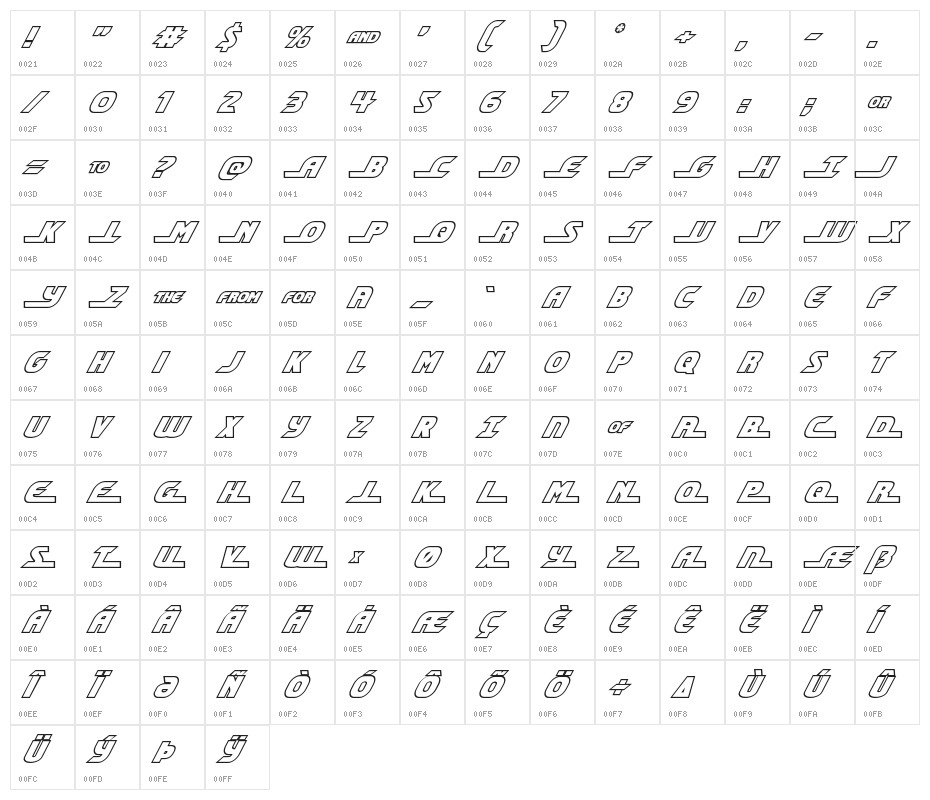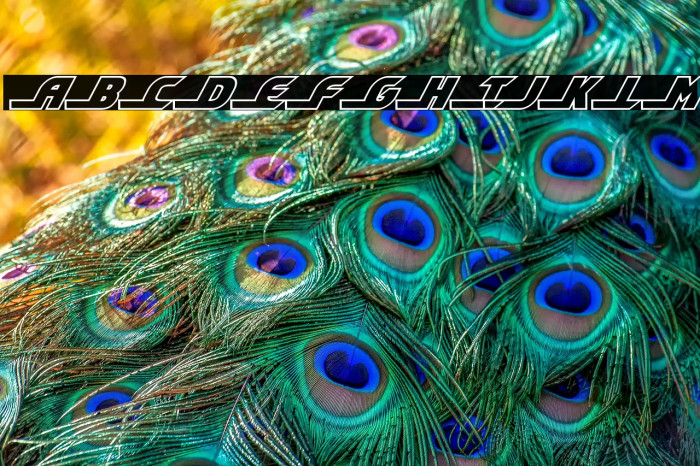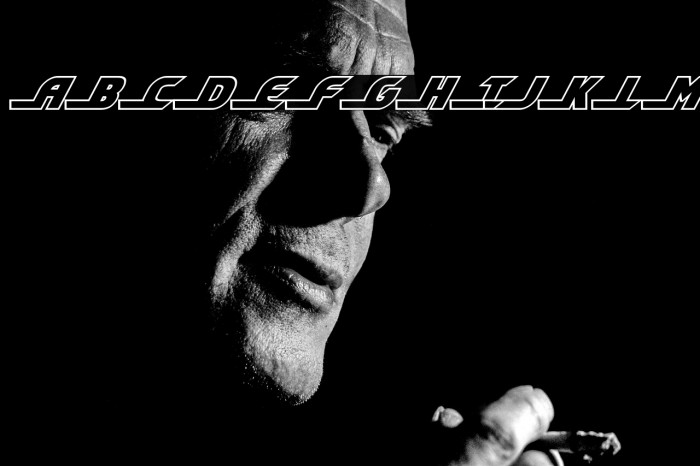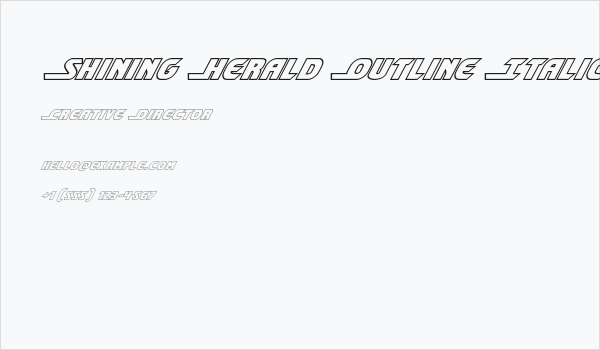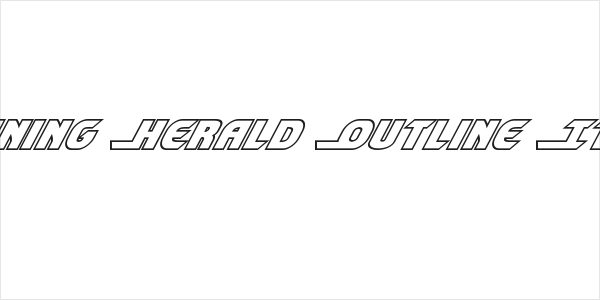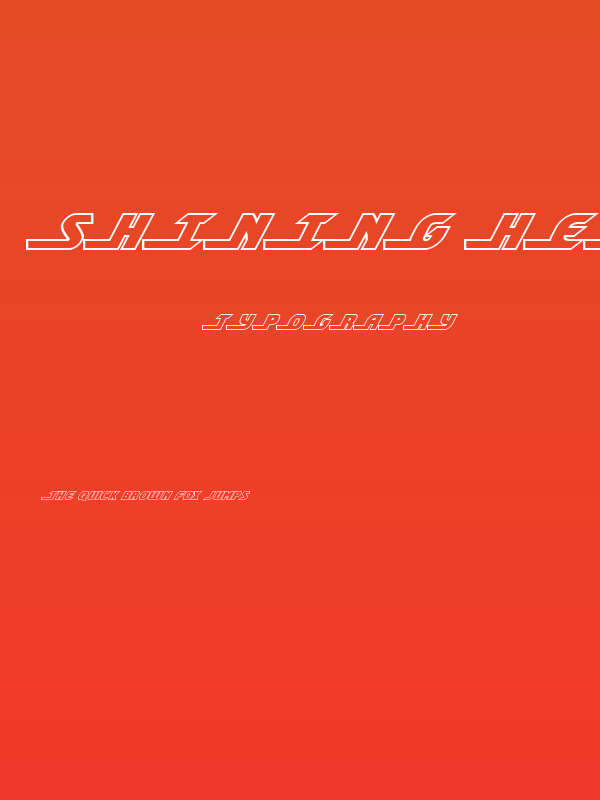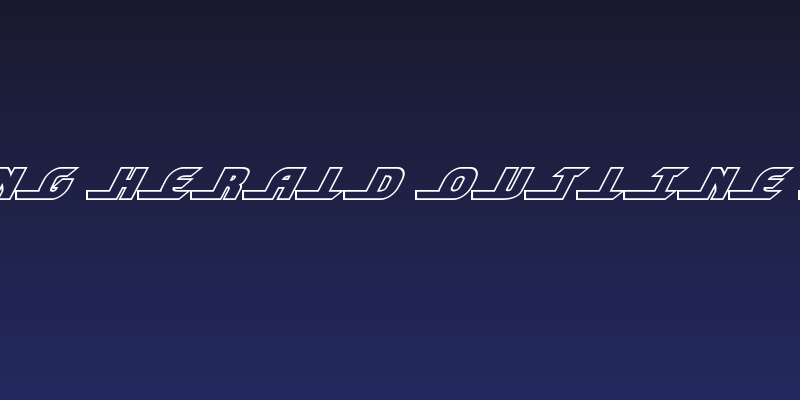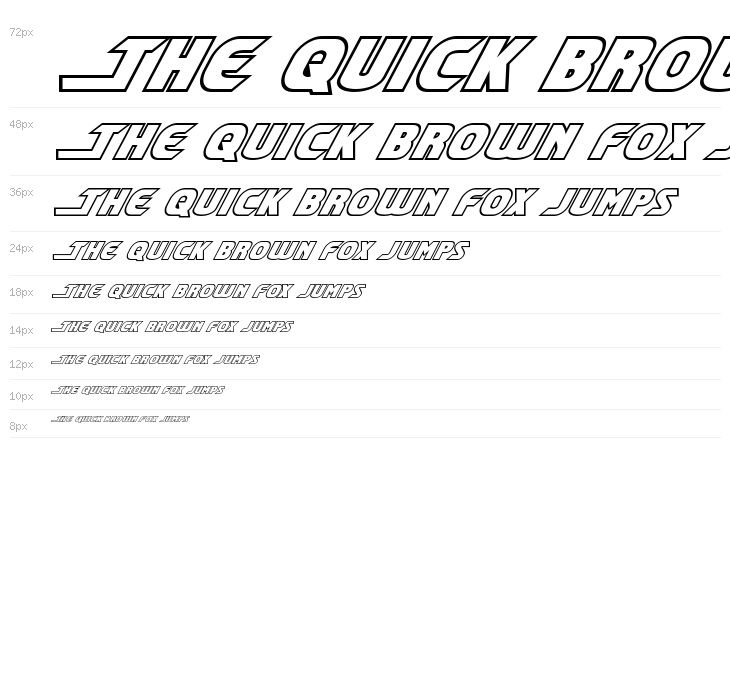
Shining Herald Outline Italic Font
Shining Herald Outline Italic Description
This font features a bold, italicized style with a distinct outline that gives it a three-dimensional appearance. The characters are slanted, adding a dynamic and energetic feel. The uppercase and lowercase letters maintain a consistent width, while the numbers and special characters complement the overall design. The font's outline effect enhances its visibility, making it suitable for eye-catching designs. Its geometric shapes and clean lines contribute to a modern aesthetic, while the italic slant adds a touch of elegance.